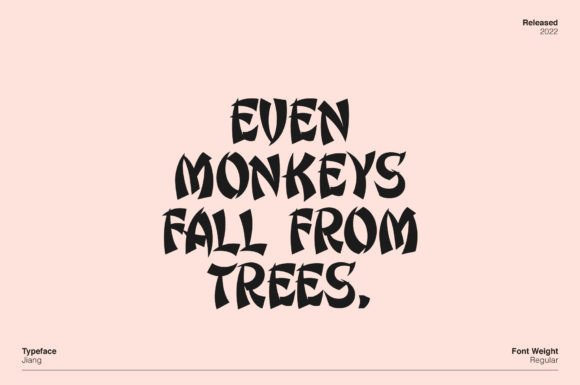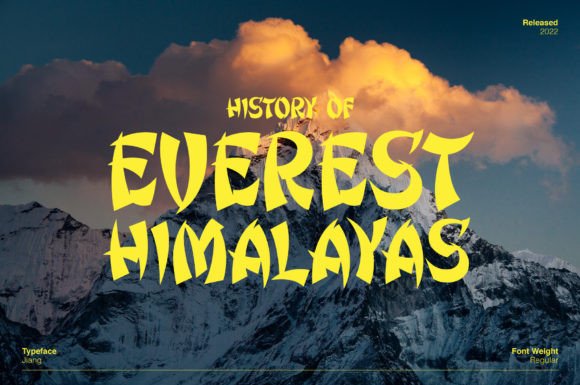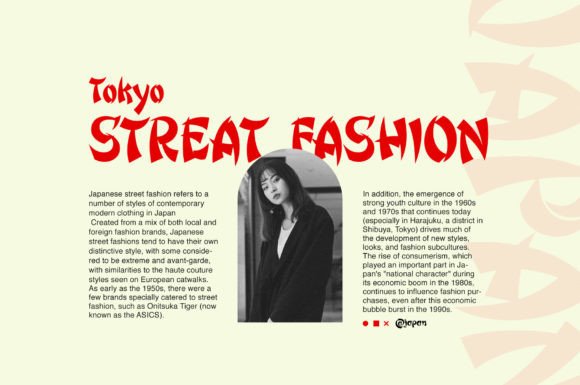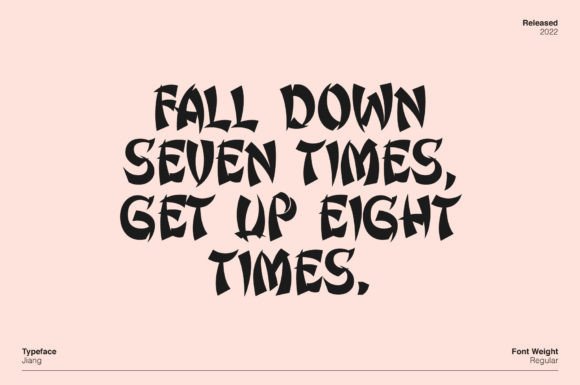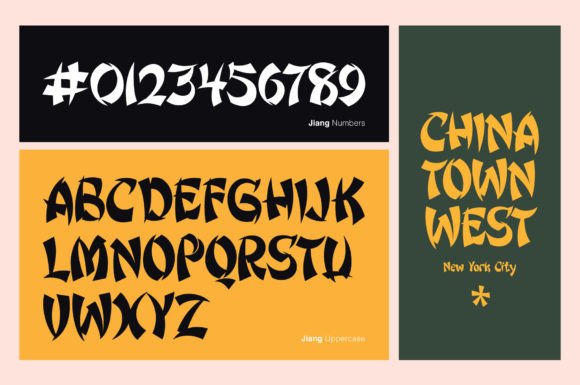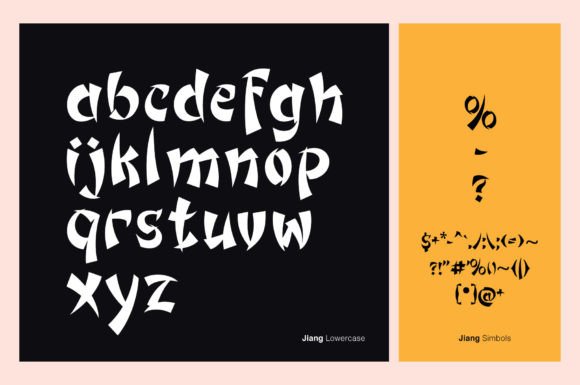
Introduction to Jiang Font
Imagine you’re brainstorming ideas for a new restaurant logo, and suddenly, a spark of inspiration hits you. The perfect font, one that screams “oriental elegance,” pops into your mind, and you know you’ve found it – Jiang Font. This stunning Asian-inspired typeface is more than just a pretty face; it’s a game-changer for designers looking to elevate their creative projects.
With its sharp features and striking design, Jiang Font is the perfect addition to any brochure, poster, or magazine spread. But what really sets it apart is its multilingual capabilities, making it a valuable resource for designers working on global projects. Whether you’re looking for a high-quality font for a free download or want to incorporate a transparent background to make your design stand out, Jiang Font has got you covered.
As a design resource, Jiang Font is a must-have for anyone looking to add a touch of sophistication and cultural flair to their creative project. So why settle for anything less when you can have the best? Start utilizing Jiang Font in your next project and watch your designs come alive with style and elegance.
Key Features of Jiang Font
- High-quality font design with a unique, elegant aesthetic, suitable for creative projects.
- Features a transparent background, allowing for seamless integration into your design without visual clutter.
- Supports a wide range of languages, making it a versatile design resource for international creative projects.
- Designed with high-resolution clarity, suitable for use in both print and digital applications at resolutions up to 300 DPI.
- Comes in a range of sizes, from 12pt to 72pt, allowing for flexible use in various design contexts.
- Perfect for use in graphic design, branding, and typography-based creative projects where a high-quality font is essential.
Honest Review: Jiang Font
I recently stumbled upon the Jiang Font and was excited to try it out for my current design project. As a designer, I’m always on the lookout for high-quality fonts that can elevate my creative work.
The Jiang Font is definitely a great find! ✨ It’s free to download, which is always a bonus, and it comes in a range of weights and styles that can be easily combined to create a unique look. The font itself is quite modern and sleek, making it perfect for a variety of design projects.
The font’s transparent background is also a nice touch, allowing me to easily layer it over other design elements without any distractions. It’s clear that the designer put a lot of thought into creating a versatile design resource.
Here are some of the features that I like about the Jiang Font:
- Range of weights and styles
- Limited character set (not ideal for projects that require a wide range of characters)
- No bold or italic versions (although this is somewhat mitigated by the range of weights)
Overall, I’m really impressed with the Jiang Font. While it may have some limitations, its high-quality design and free download make it a great addition to any designer’s toolkit. I’d definitely recommend it for any creative project that requires a modern and sleek font.
Tips for Getting the Most Out of Jiang Font
For optimal results, use Jiang Font in combination with other high-quality design elements to create a visually appealing design. Experiment with different font sizes, styles, and colors to get the most out of this versatile font.
Common Use Cases for Jiang Font
Jiang Font is ideal for use in creative projects such as logos, business cards, and brochures. Its high-quality design and transparent background make it perfect for use in graphic design, digital art, and print design.